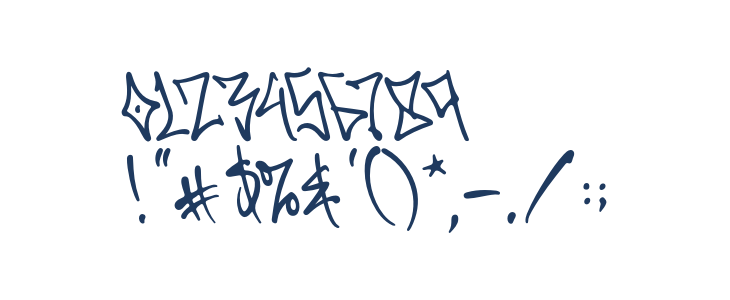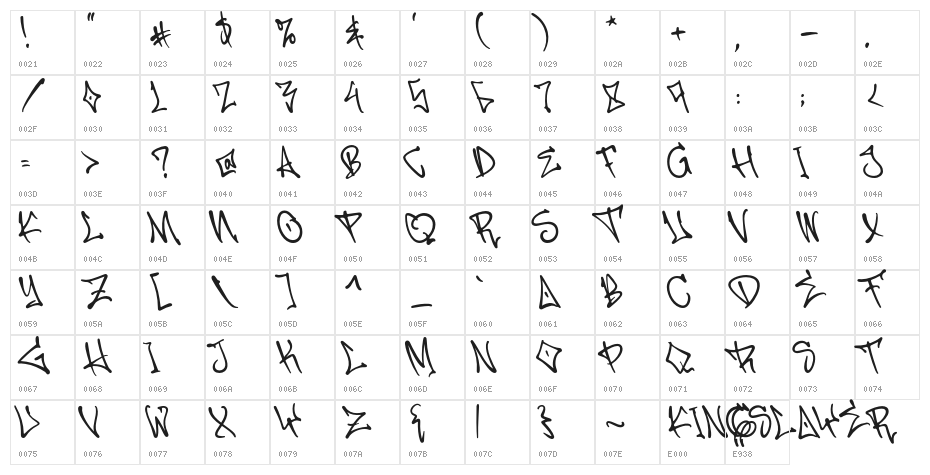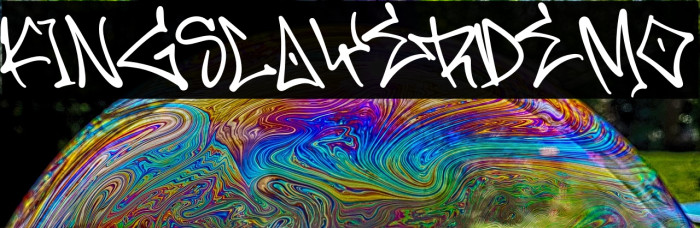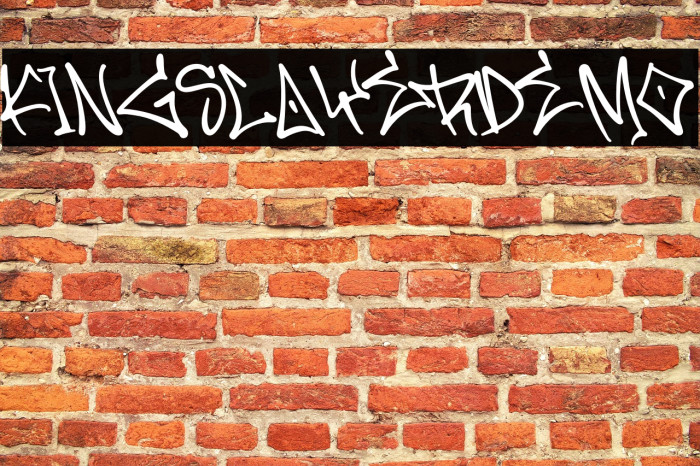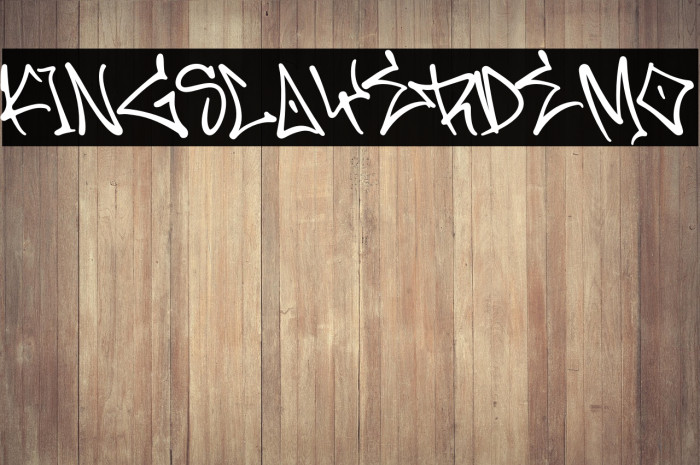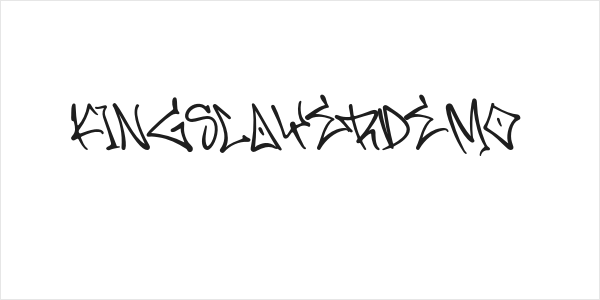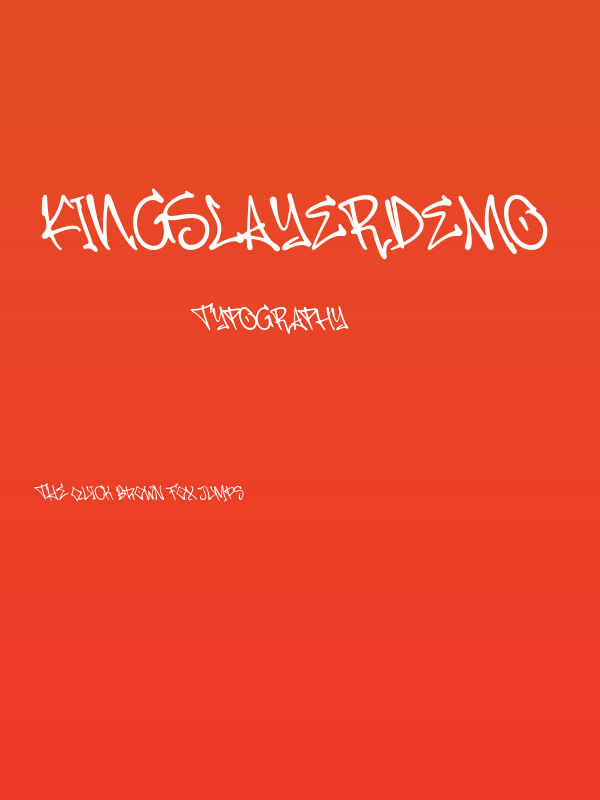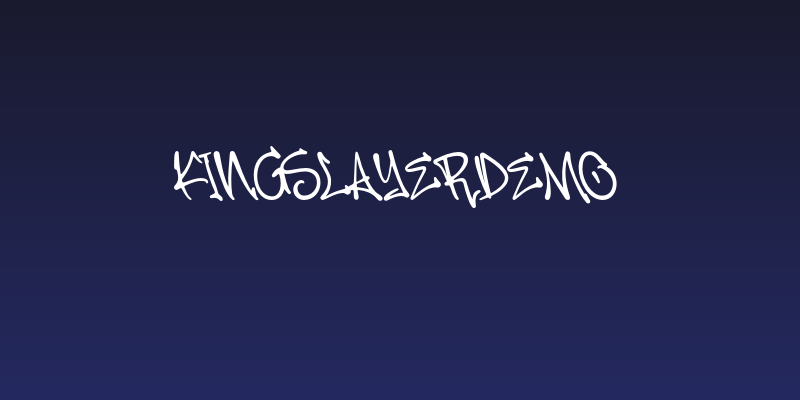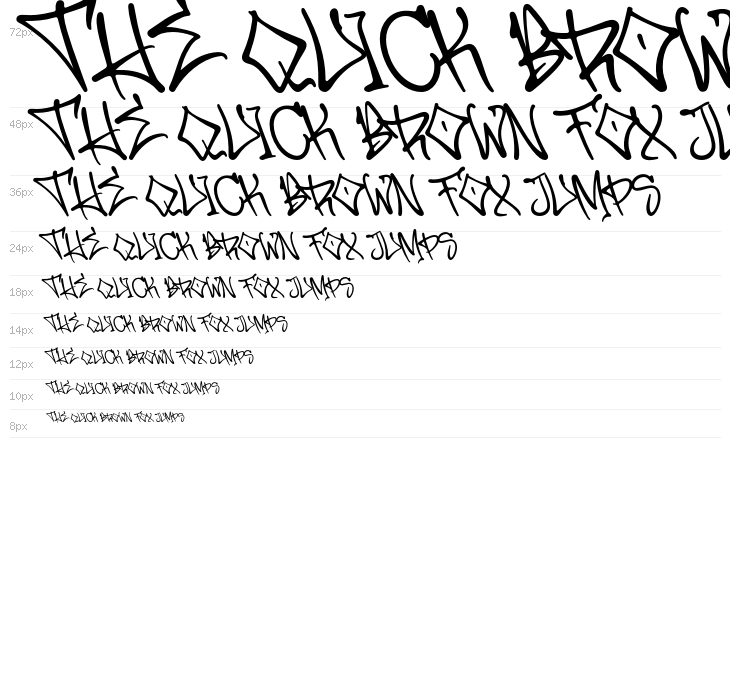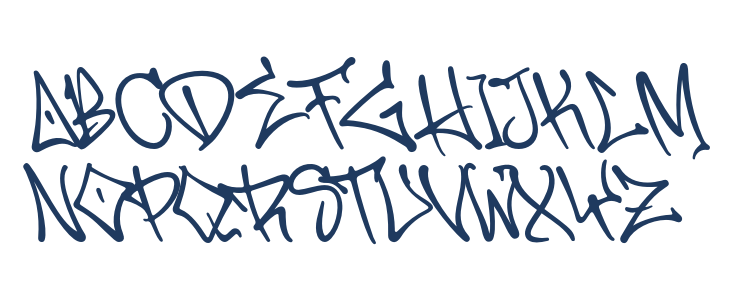
KingslayerDemo Font
KingslayerDemo Description
This font exudes a bold and rebellious spirit with its graffiti-inspired style. The characters are dynamic and energetic, featuring sharp angles and exaggerated curves that give a sense of movement and flair. The uppercase and lowercase letters maintain a consistent style, with a playful yet edgy appearance. Numbers and special characters follow the same design principles, ensuring a cohesive look across all elements. The font's unique personality makes it stand out, perfect for projects that require a touch of urban or street art influence.
| Overall Style | Urban, Graffiti, Edgy |
| Use Case | Logos, Posters, Album Covers |
| Proposed Projects | Ideal for street art designs, urban-themed posters, music album covers, and edgy branding projects. |